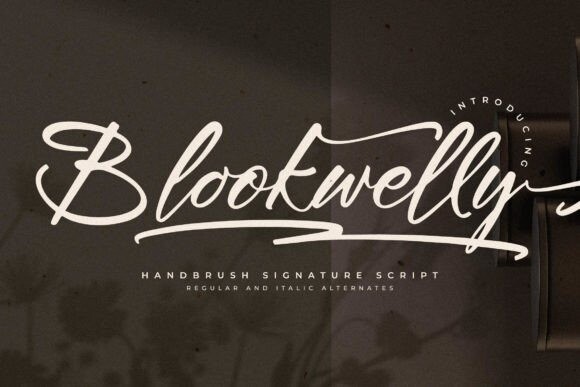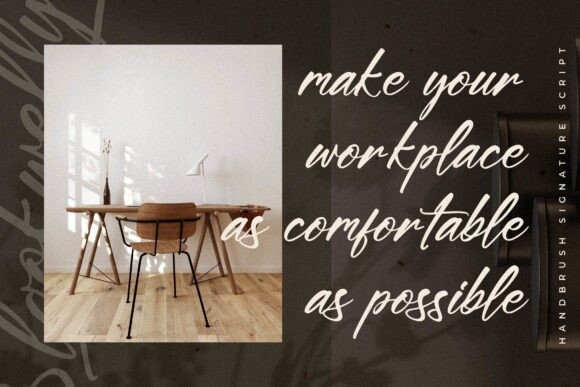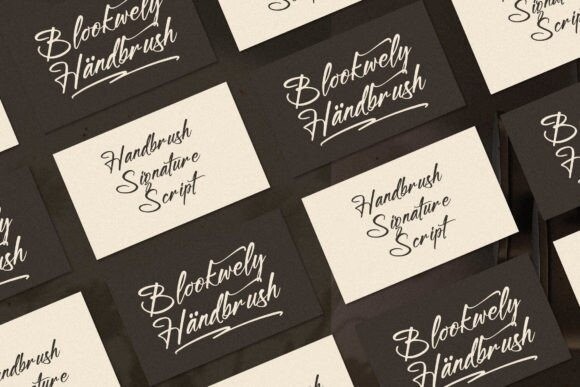
Blookwelly Font
Blookwelly Font is a handbrush signature script font, suitable for any projects such as logos, branding projects, homeware designs, product packaging, mugs, quotes, posters, shopping bags, t-shirts, book covers, name card, invitation cards, greeting cards, label, photography, watermark, special events, and all your other lovely projects that need a beautiful script touch.